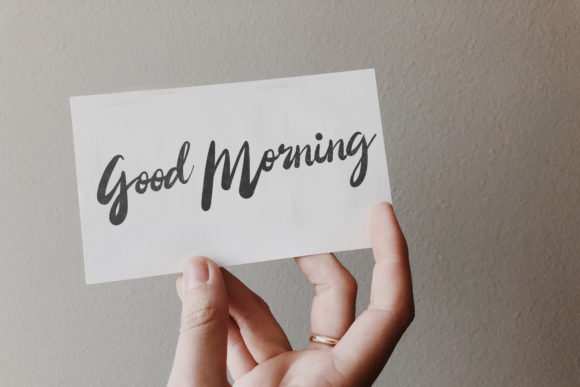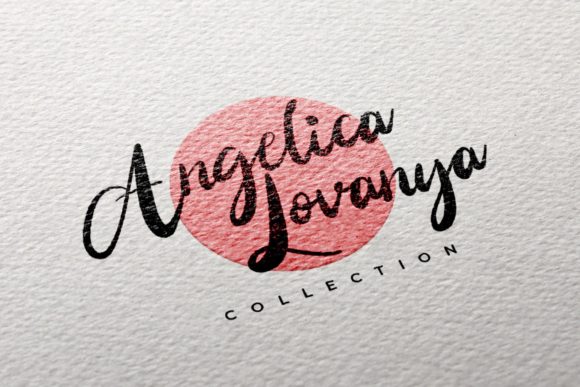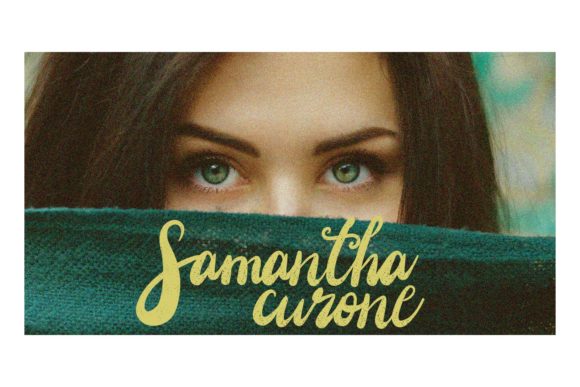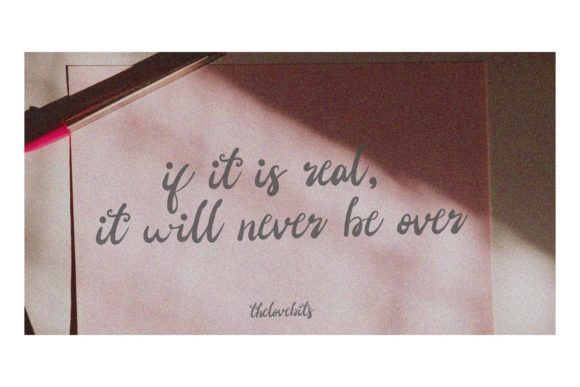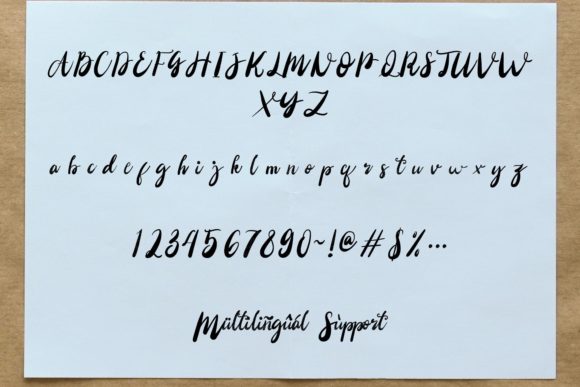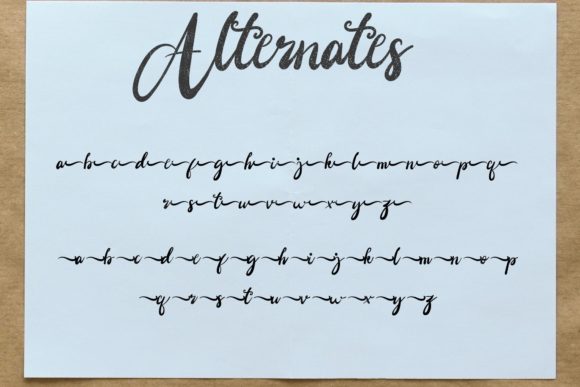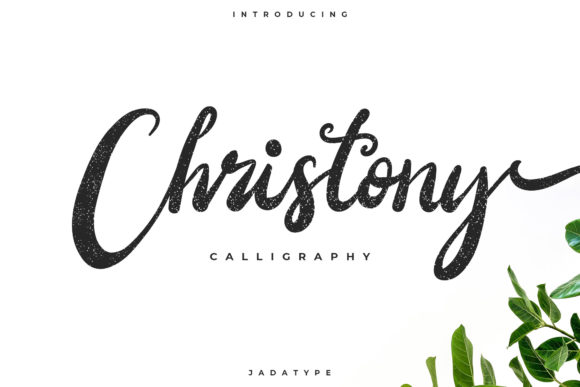
Introducing Christony Font: A Romantic and Sweet Calligraphy Typeface
Are you looking for a font that adds a touch of romance and sweetness to your design projects? Look no further than Christony Font, a beautiful calligraphy typeface that is sure to capture your heart. With its unique and elegant characters that dance along the baseline, Christony Font is the perfect addition to any design project that requires a personal and whimsical touch.
What Makes Christony Font Special?
Christony Font is a romantic and sweet calligraphy typeface that stands out from the rest due to its unique features. Here are a few things that make Christony Font special:
- PUA Encoded: Christony Font is PUA (Private Use Area) encoded, which means that you can access all of the glyphs and swashes with ease. This feature makes it easy to use and customize the font to suit your design needs.
- Dancing Characters: The characters in Christony Font dance along the baseline, adding a playful and whimsical touch to your design projects.
- Elegant and Romantic: Christony Font has an elegant and romantic feel to it, making it perfect for design projects that require a personal and sophisticated touch.
Uses of Christony Font
Christony Font is a versatile font that can be used in a variety of design projects, including:
- Wedding Invitations: Christony Font is perfect for wedding invitations, save-the-date cards, and other wedding-related design projects.
- Stationery: Christony Font can be used to create beautiful stationery, including letterheads, greeting cards, and journals.
- Branding: Christony Font can be used to create a unique and elegant brand identity for businesses, especially those in the fashion, beauty, and lifestyle industries.
- Signage: Christony Font can be used to create eye-catching signage, including store signs, banners, and posters.
Tips for Using Christony Font
Here are a few tips for using Christony Font in your design projects:
- Pair it with a Simple Font: Christony Font is a decorative font, so it’s best to pair it with a simple font to create visual balance.
- Use it for Headings: Christony Font is perfect for headings and titles, so use it to add a touch of elegance and sophistication to your design projects.
- Experiment with Swashes: Christony Font comes with a range of swashes that can be used to add a personal touch to your design projects. Experiment with different swashes to find the one that works best for your design.
Why Designers and Crafters Love Christony Font
Designers and crafters love Christony Font for a variety of reasons, including:
- Ease of Use: Christony Font is easy to use and customize, making it perfect for designers and crafters of all skill levels.
- Unique and Elegant: Christony Font has a unique and elegant feel to it, making it perfect for designers and crafters who want to add a touch of sophistication to their design projects.
- Versatile: Christony Font is a versatile font that can be used in a variety of design projects, making it a great addition to any design library.
In conclusion, Christony Font is a romantic and sweet calligraphy typeface that is perfect for designers and crafters who want to add a touch of elegance and sophistication to their design projects. With its unique features, versatility, and ease of use, Christony Font is a great addition to any design library. So why wait? Add Christony Font to your design projects today and see the difference it can make!